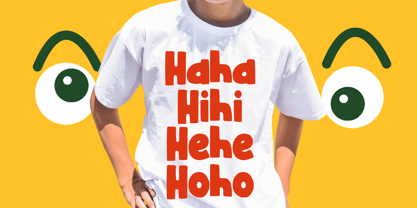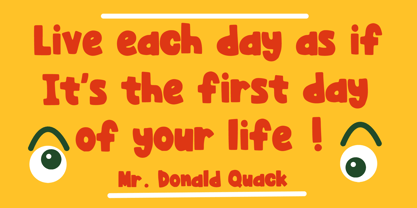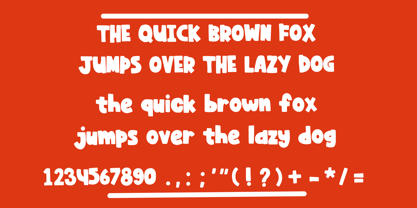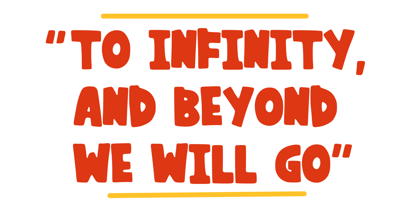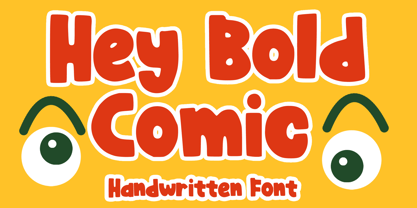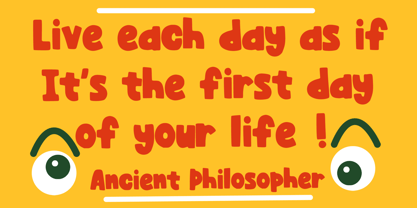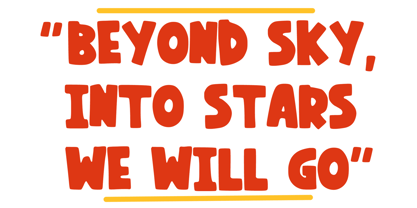
Hey Bold Comic
by Mvmet
The Hey Bold Comic Font Family was designed by Gabriel Valentinus and published by Mvmet. Hey Bold Comic contains 1 styles.
Hey Bold Comic is a fun bold cartoon display font for your everything needs! You can use it for anything ranging from t-shirts and clothing, for your kids book designs, kids party needs, greeting cards, stickers, posters, banners, or anything that needs a bold and fun touch. Try it to create fabulous designs and feel the fun and cheering vibes with it!
Designers: Gabriel Valentinus
Publisher: Mvmet
Foundry: Mvmet
Design Owner: Mvmet